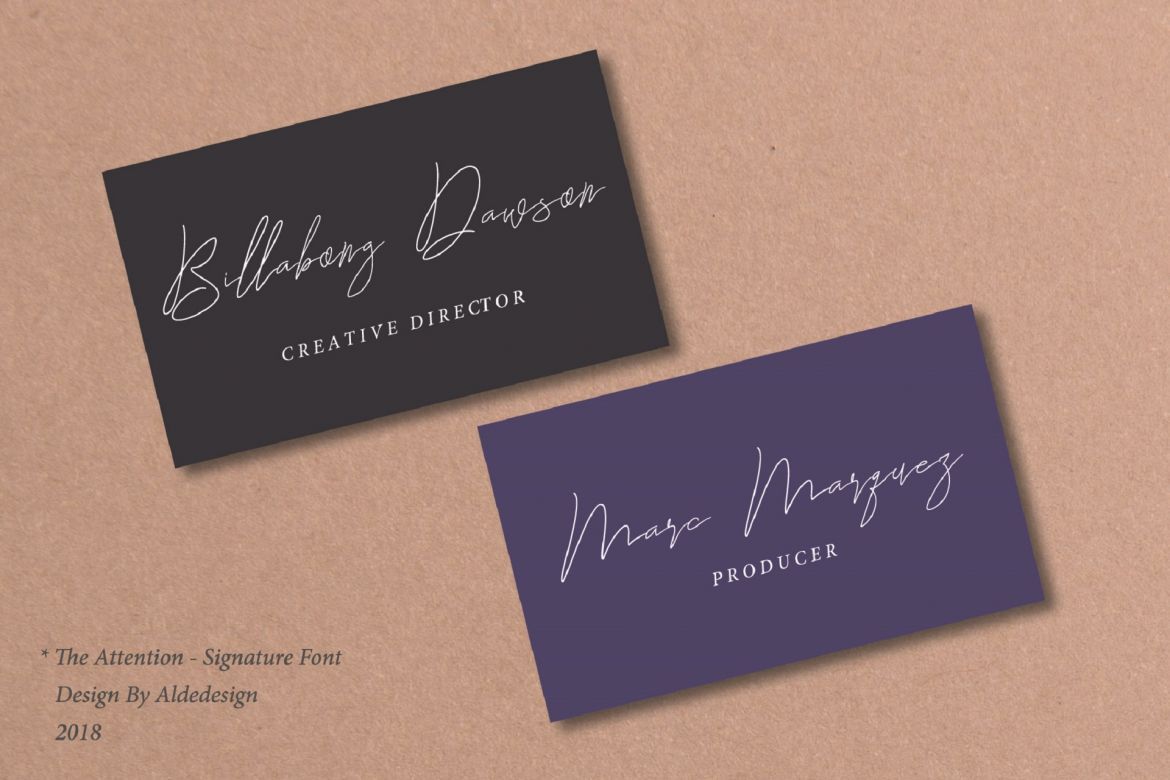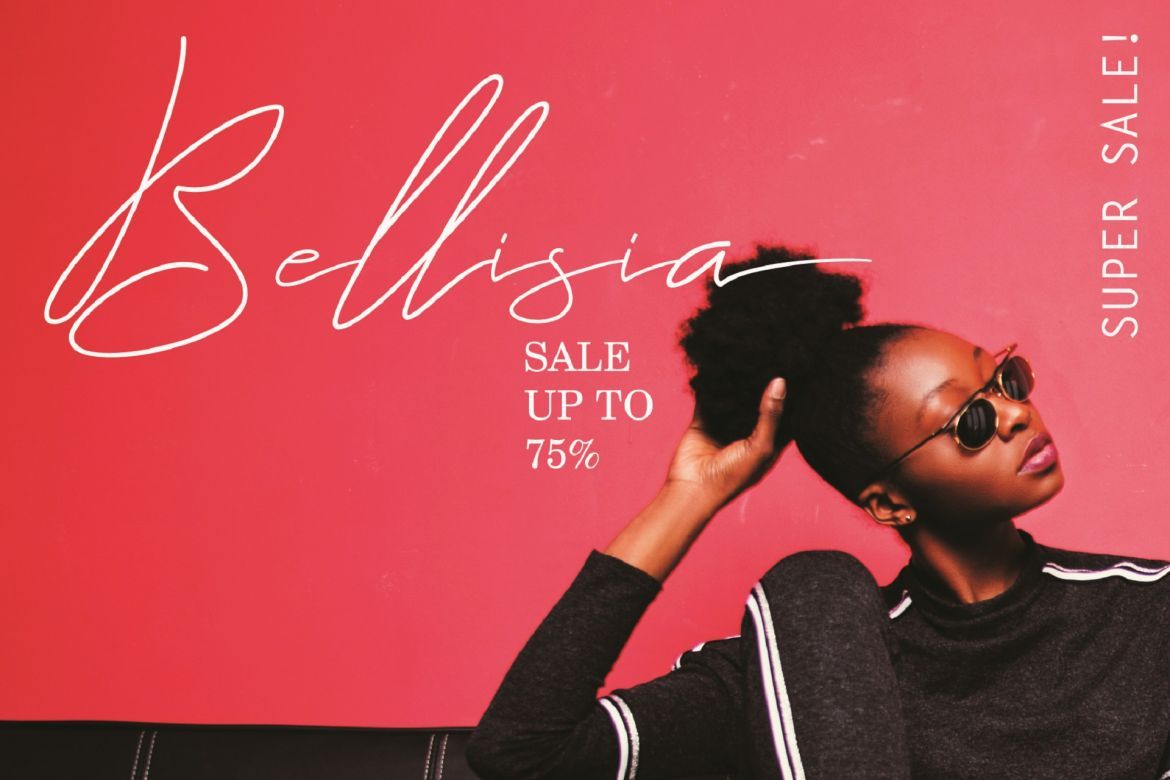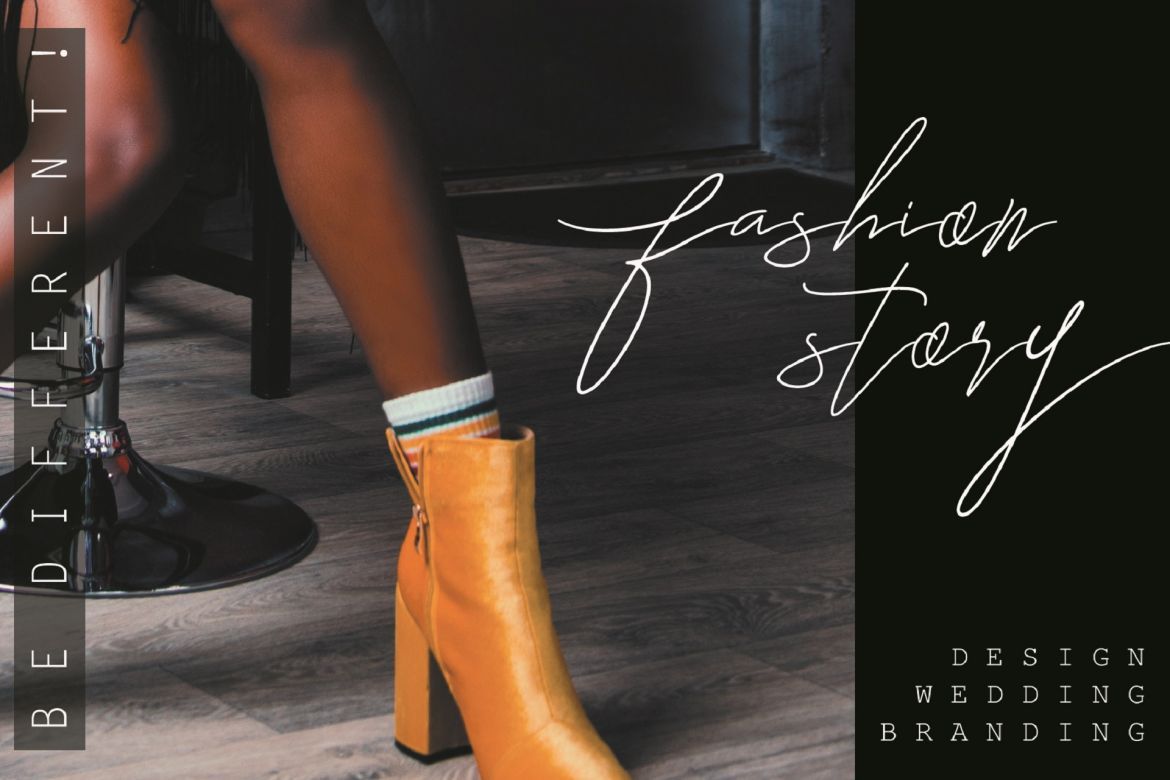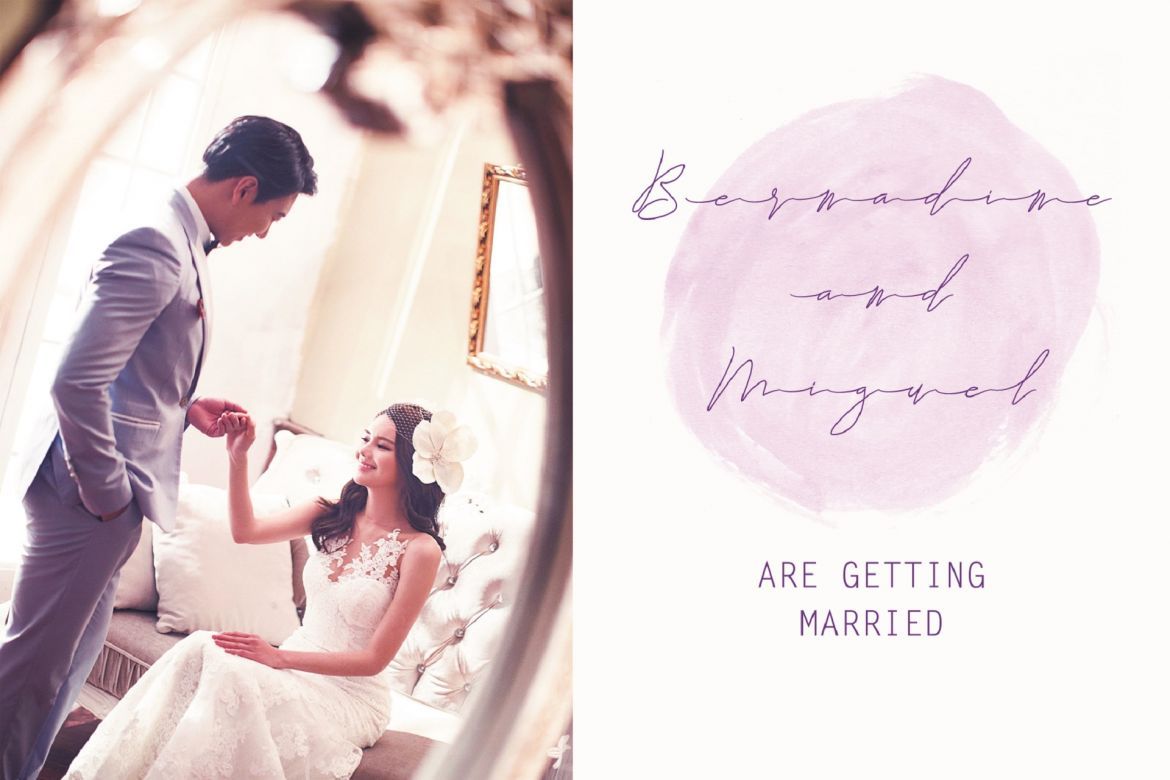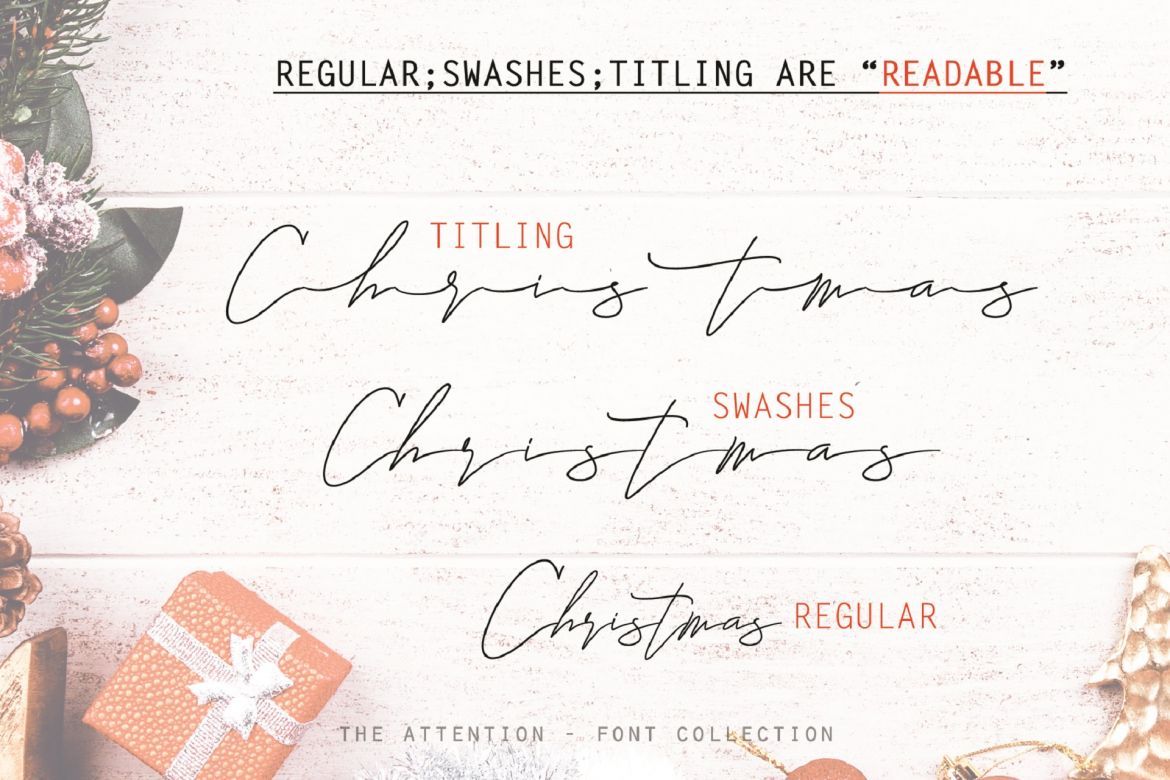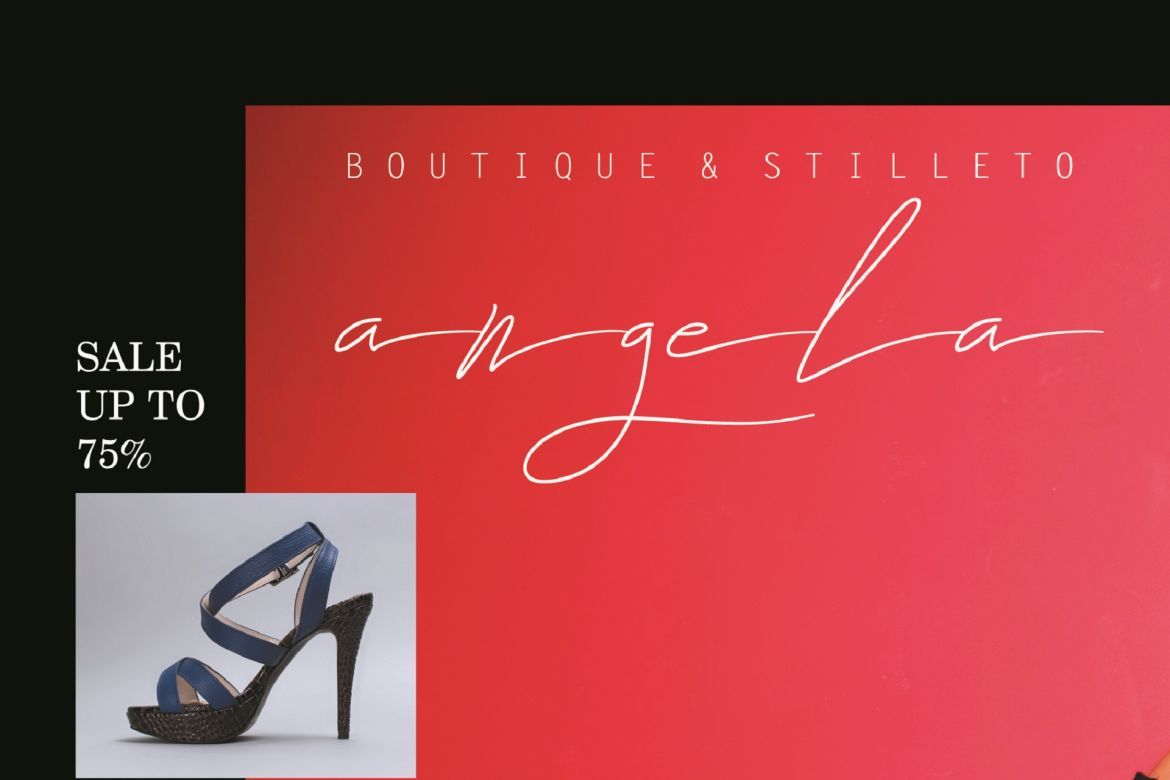
The Attention - Signature Font
The Attention is a stylish unique signature font and easy to remember. It's great for unique branding, photo overlays, watermark, business card, invitations, etc.
This font is easy to use, the basis if this unique font is it’s simplicity.
• each font has: stylish handwritten style, beautiful swash (ending tail), beautiful titling (beginning tail), special ligatures, multilingual support